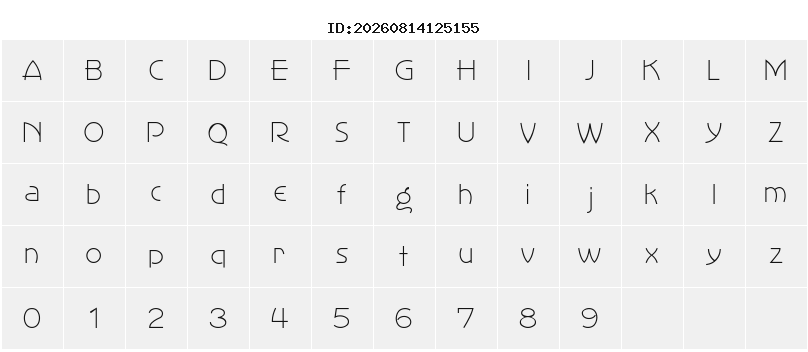
Stringline Gothic Preview
• Font Name: Stringline Gothic
• Full Font Name: Stringline Gothic
About Stringline Gothic.ttf
Stringline Gothic.ttf is a modern, elegant sans-serif font designed for ultimate readability and visual harmony. Perfect for branding, headlines, web design, and print materials.